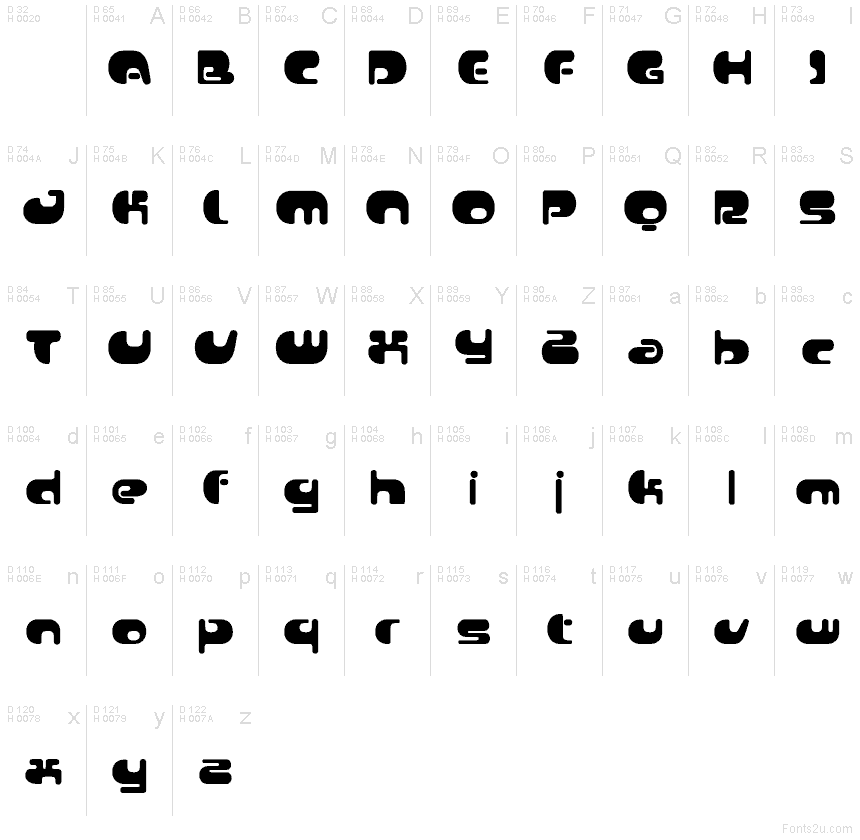
CS Metro Regular Demo
CS Metro font, designed by Craft Supply Co., forms an approachable vibe, created by a cohesive design of elements and strokes. A geometric influence is evident in each letter with varied strokes dominating their body shapes. The typeface holds a rounded aesthetic that brings both modern appeal and a retro style with its bold characters.
An expanded width makes the free display font ideal for branding projects, posters, magazine covers, headlines, brochures, flyers, billboards advertising products or shops as well as websites designs or applications. It can also be used for packaging designs like cereal boxes and other product packages.